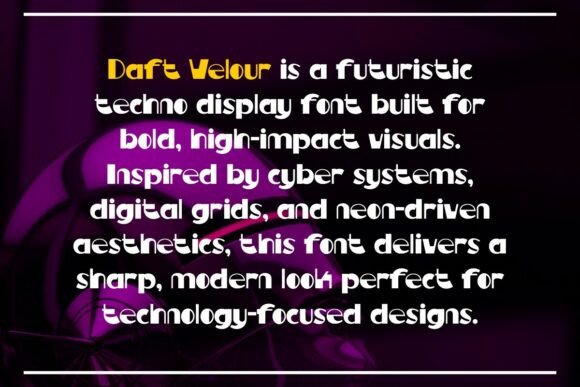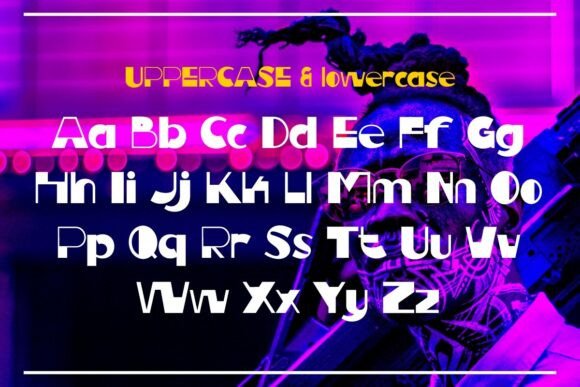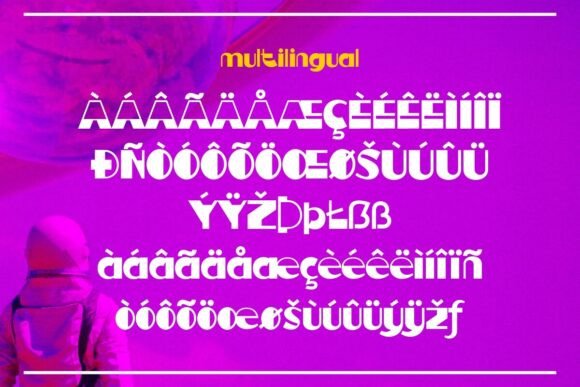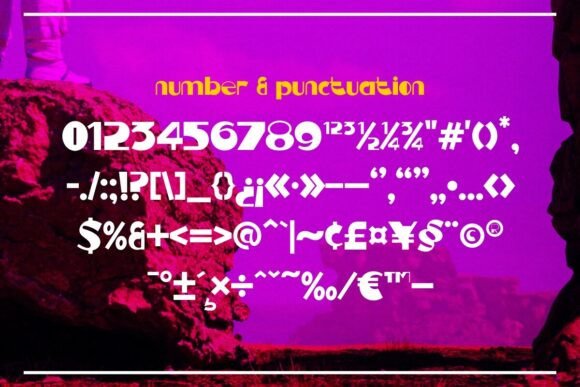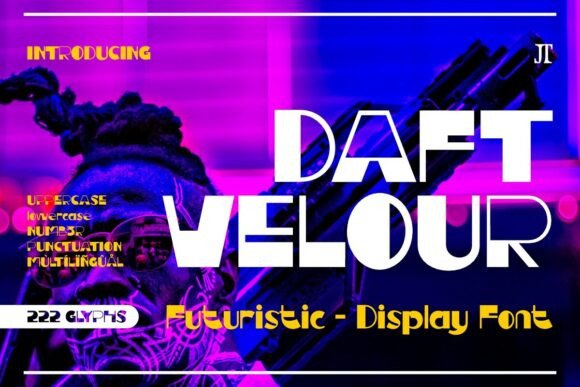
Introducing Daft Velour: The Futuristic Techno Display Font for Bold Visuals
In the realm of digital design, a font can make all the difference in capturing the essence of a brand or project. For those seeking a bold, high-impact visual statement, Daft Velour emerges as a game-changer. This futuristic techno display font is specifically crafted for designs that demand attention, inspired by the sleek, neon-driven aesthetics of cyber systems and digital grids.
A Font Inspired by the Digital Age
Daft Velour’s design is deeply rooted in the visual language of the digital era. It draws inspiration from the geometric shapes and grid-based structures that underpin modern technology. The result is a font that exudes a sharp, modern look, perfect for technology-focused designs that require a cutting-edge feel. Whether it’s for a tech startup, a futuristic video game, or a sci-fi movie poster, Daft Velour provides the typographic punch needed to stand out.
Key Features of Daft Velour
- Geometric Shapes: Daft Velour’s characters are built from strong geometric shapes, providing a clean and structured appearance that lends itself well to digital and tech-related themes.
- Distinctive Letterforms: Each letter in Daft Velour has been carefully crafted to offer a unique and recognizable style that sets it apart from more traditional fonts.
- High-Impact Visuals: Designed to perform exceptionally well in large sizes, Daft Velour is ideal for headlines, posters, and any project requiring bold typography.
Daft Velour’s versatility and striking appearance make it suitable for a wide range of applications. Here are some of the areas where this font truly shines:
Tech & Futuristic Branding
In the tech industry, branding needs to convey innovation, speed, and reliability. Daft Velour’s futuristic look is perfectly aligned with these requirements, making it an excellent choice for tech startups and established companies looking to rebrand or refresh their image.
Posters & Flyers
For print materials like posters and flyers, Daft Velour’s bold and eye-catching style ensures that your message will not go unnoticed. Its unique aesthetic can help in creating visually stunning promotional materials that capture the essence of your event or product.
Game Titles & UI Headers3>
In the gaming industry, where visuals are paramount, Daft Velour can be used to create compelling game titles and user interface headers that draw players in. Its futuristic vibe is particularly well-suited for sci-fi and tech-based games.
Sci-fi Visuals & Digital Art
For digital artists and creators of sci-fi content, Daft Velour offers a typographic solution that complements futuristic and cyberpunk aesthetics. It can be used to add a professional and thematic consistency to digital art pieces, movie posters, and fan art.
Logo Display & Experimental Typography
Daft Velour’s distinctive style also makes it a great candidate for logo design and experimental typography projects. Its unique character forms can help in creating memorable logos and typographic compositions that stand out in a crowded digital landscape.
Daft Velour is more than just a font; it’s a design statement. Its futuristic techno display style, inspired by the digital age, makes it an invaluable tool for designers and crafters looking to create bold, high-impact visuals. Whether you’re working on a tech startup’s branding, a futuristic video game, or a sci-fi movie poster, Daft Velour provides the perfect blend of style, modernity, and legibility. Embrace the future of design with Daft Velour and make your project stand out in the digital era.